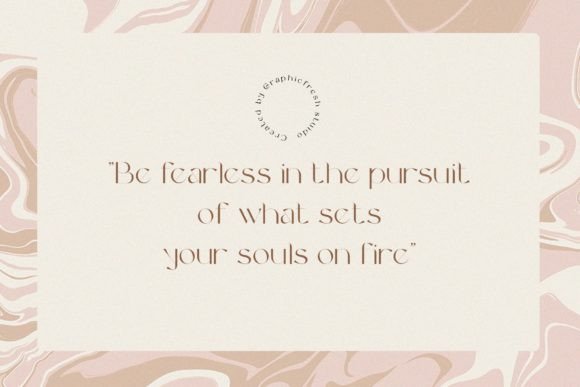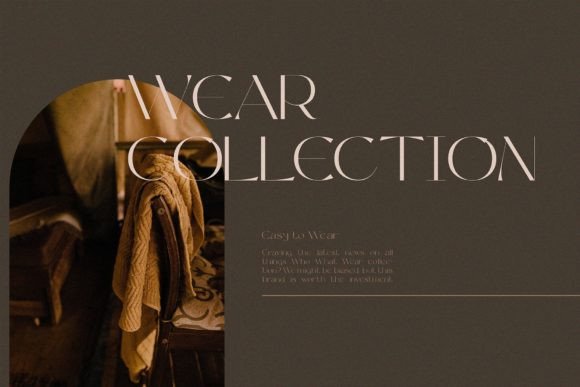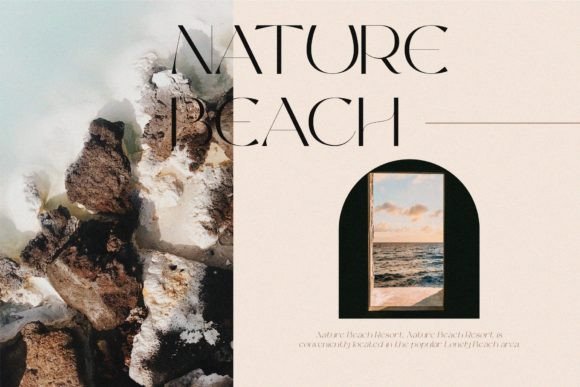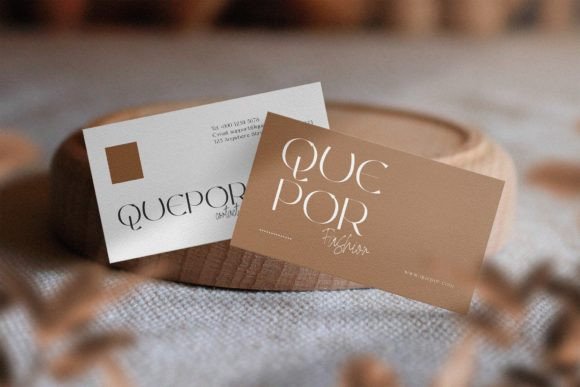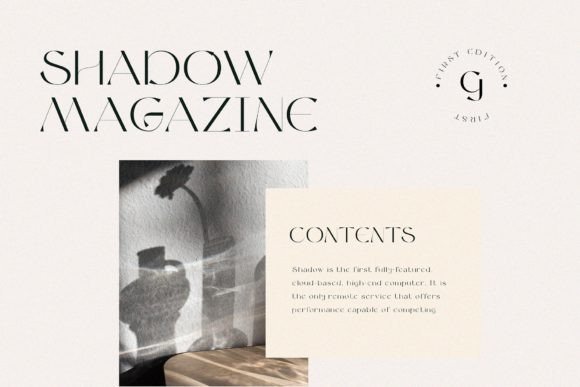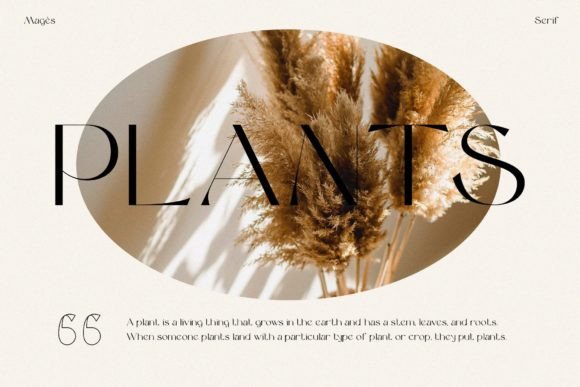
Introduction to Magès Font
Magès is a modern and stylish serif font.
Incredibly trendy yet still maintaining a touch of elegance, this font will suit perfectly a wide range of chic designs .
Key Features of Magès Font
Why Choose Magès Font?
Magès Font offers exceptional quality and versatility, making it a valuable addition to your design toolkit. Whether you’re creating for personal projects or commercial use, Magès Font delivers professional results.